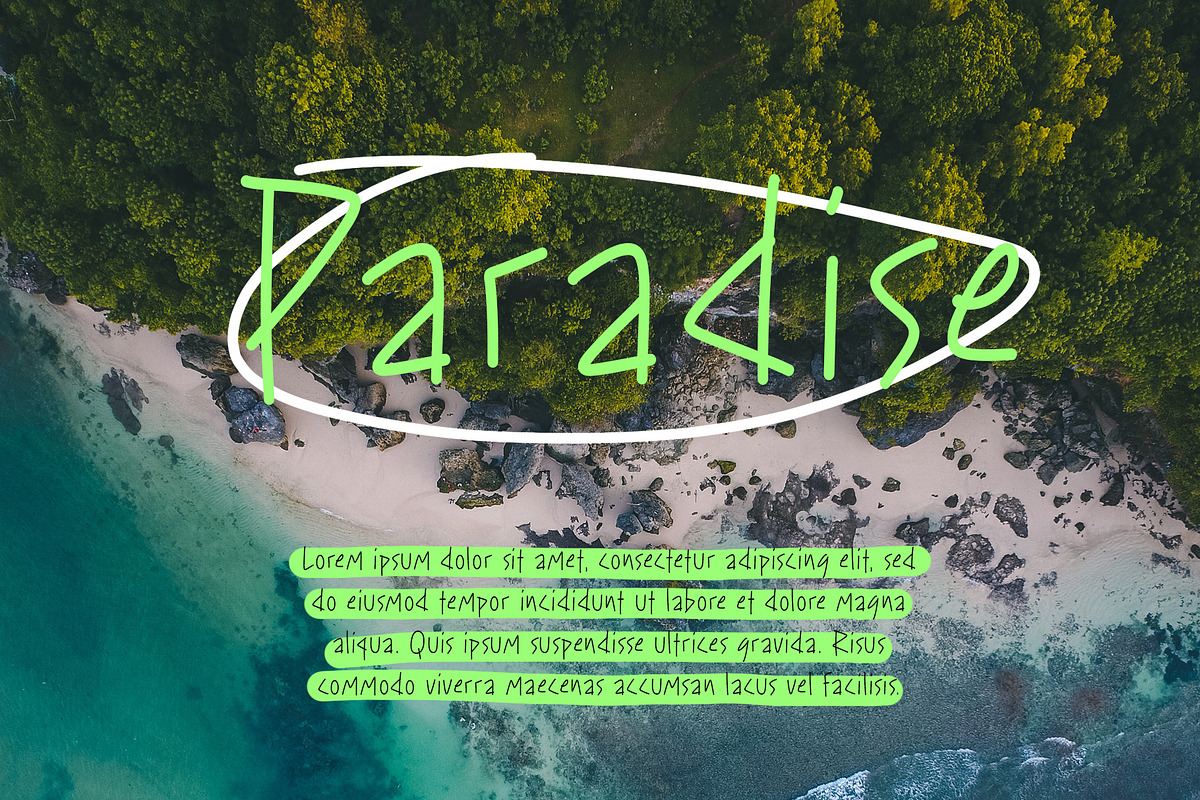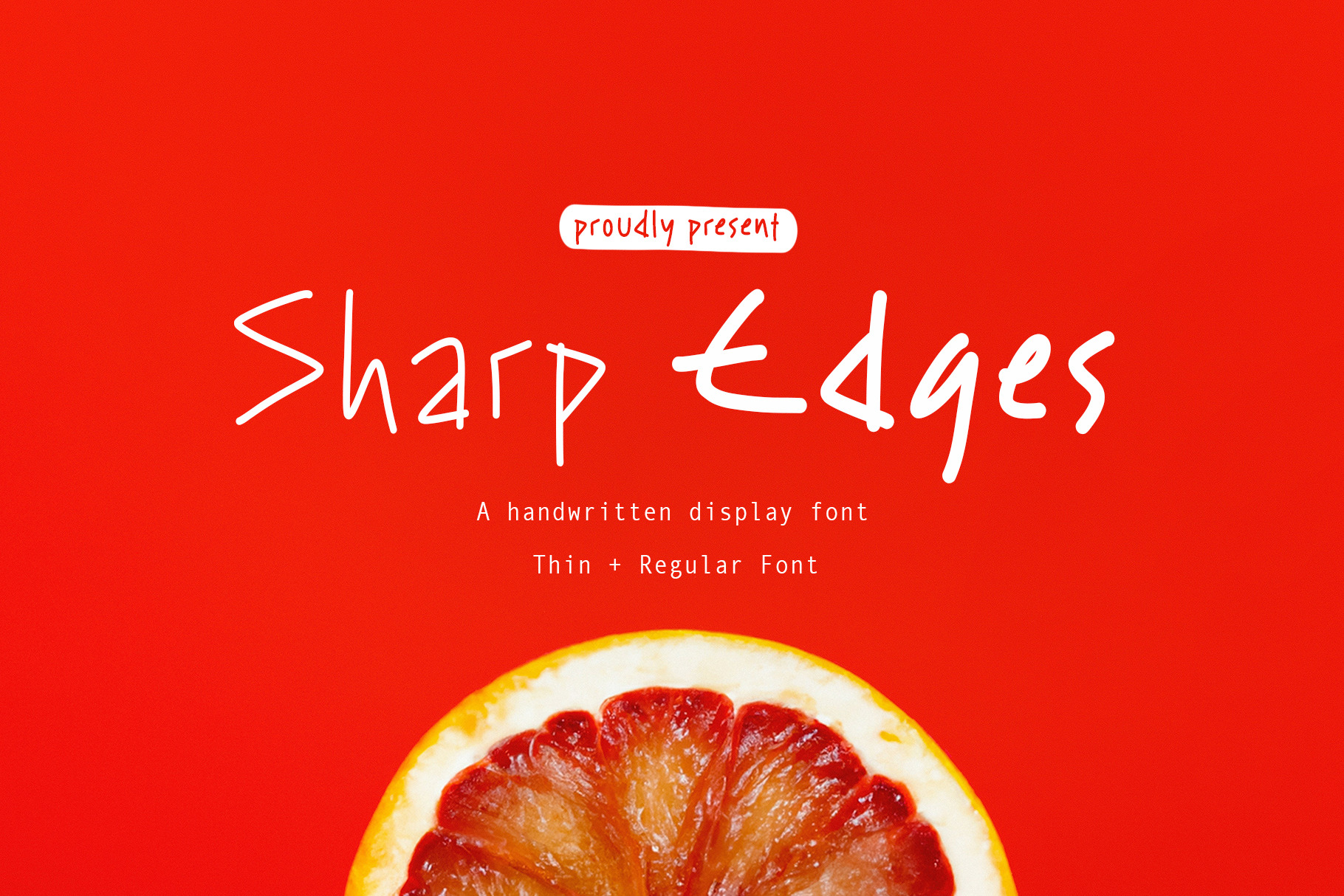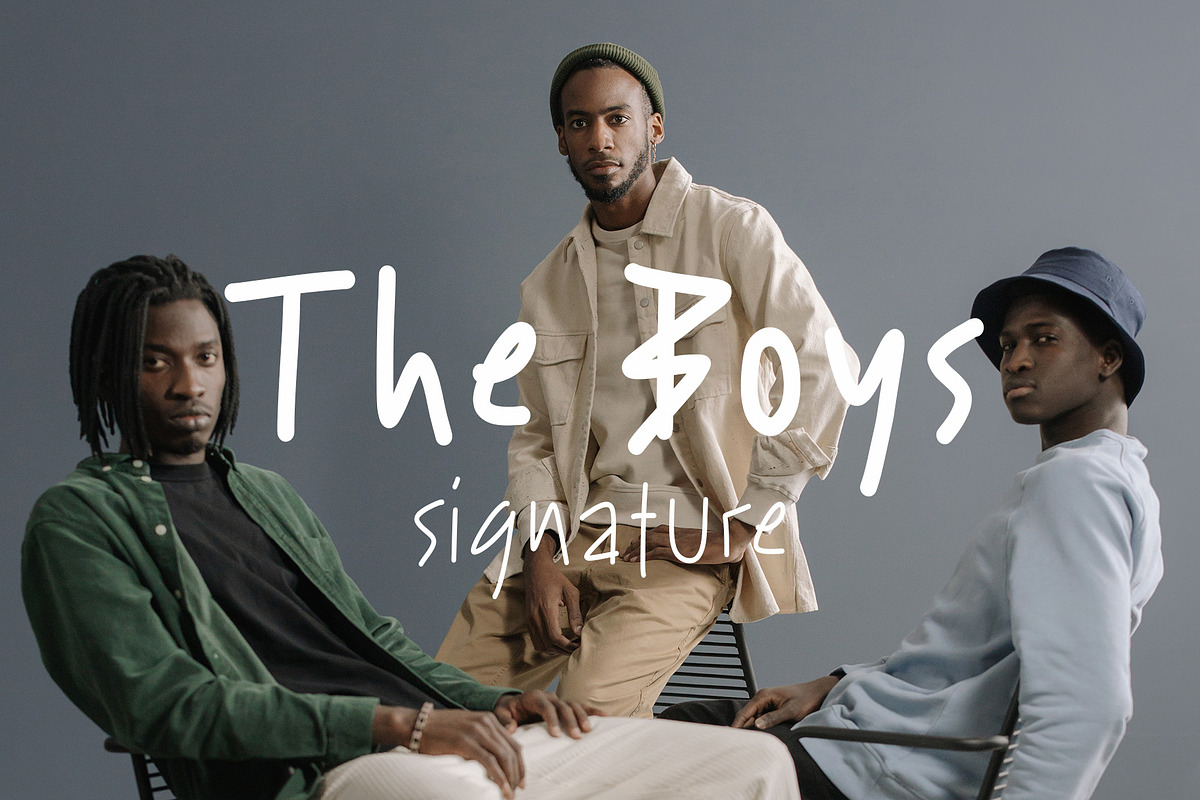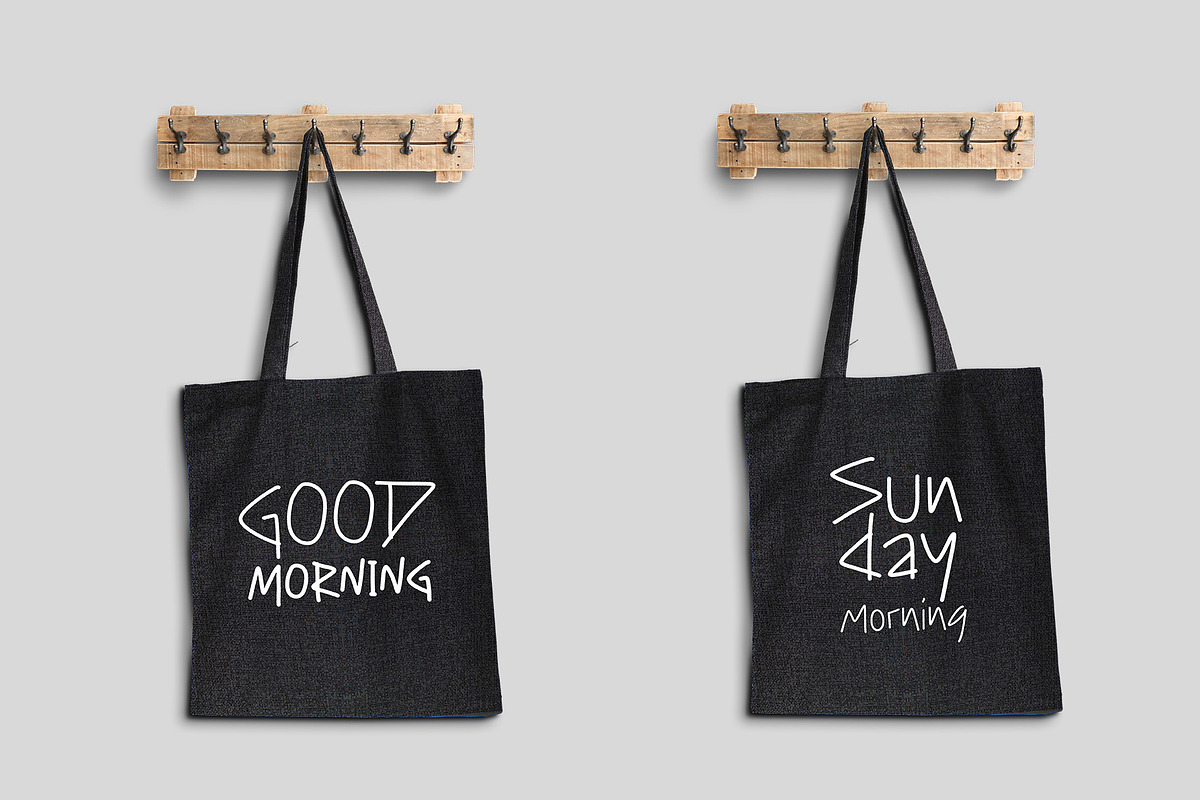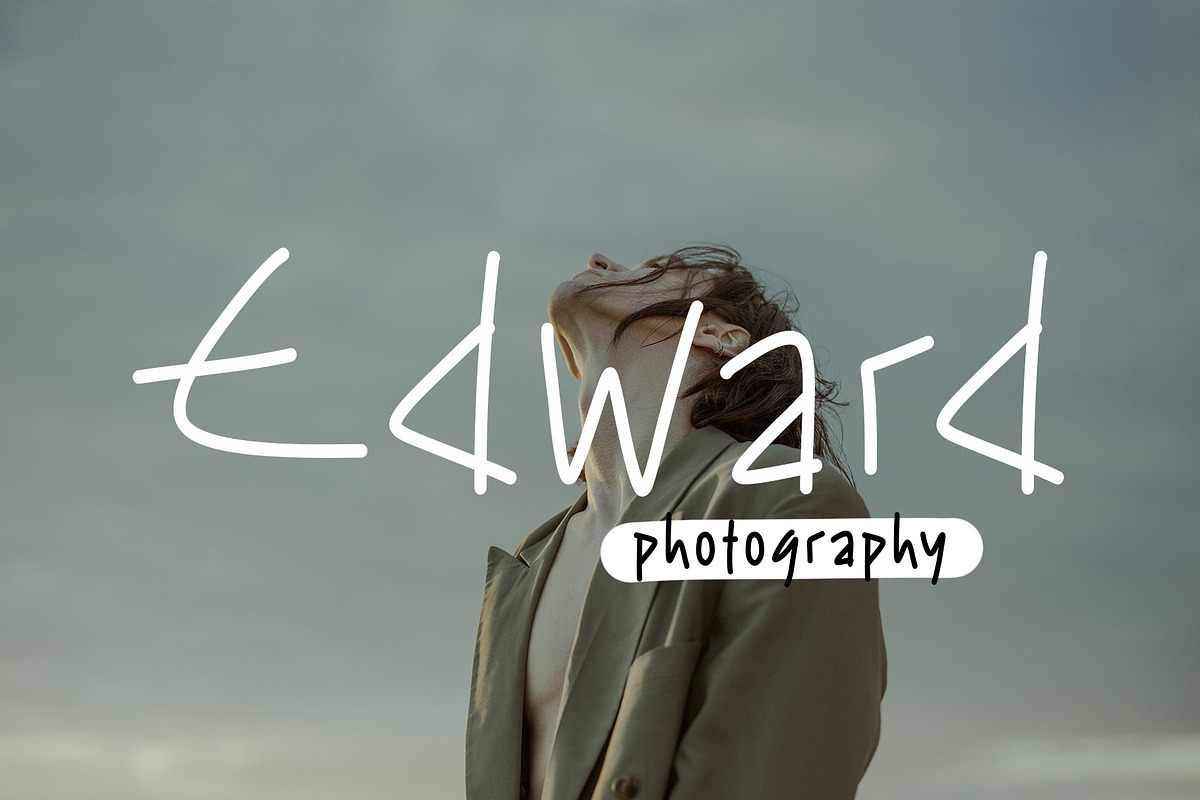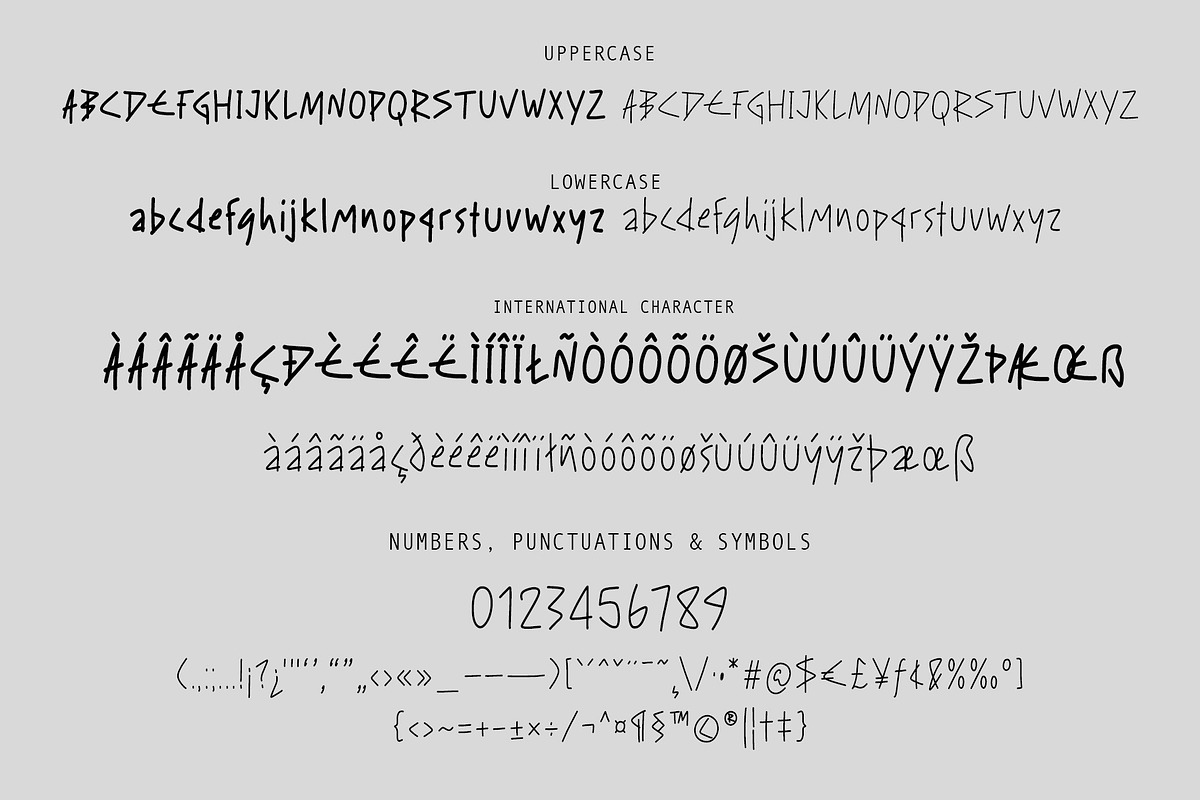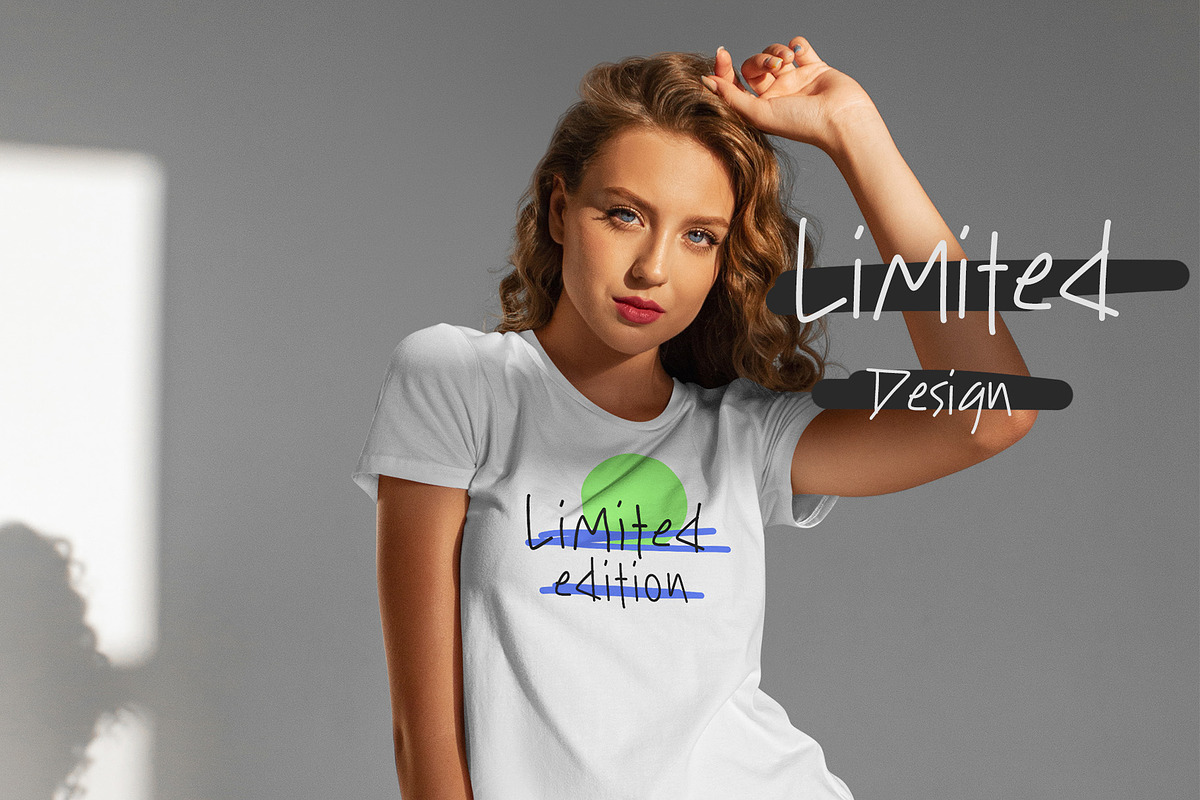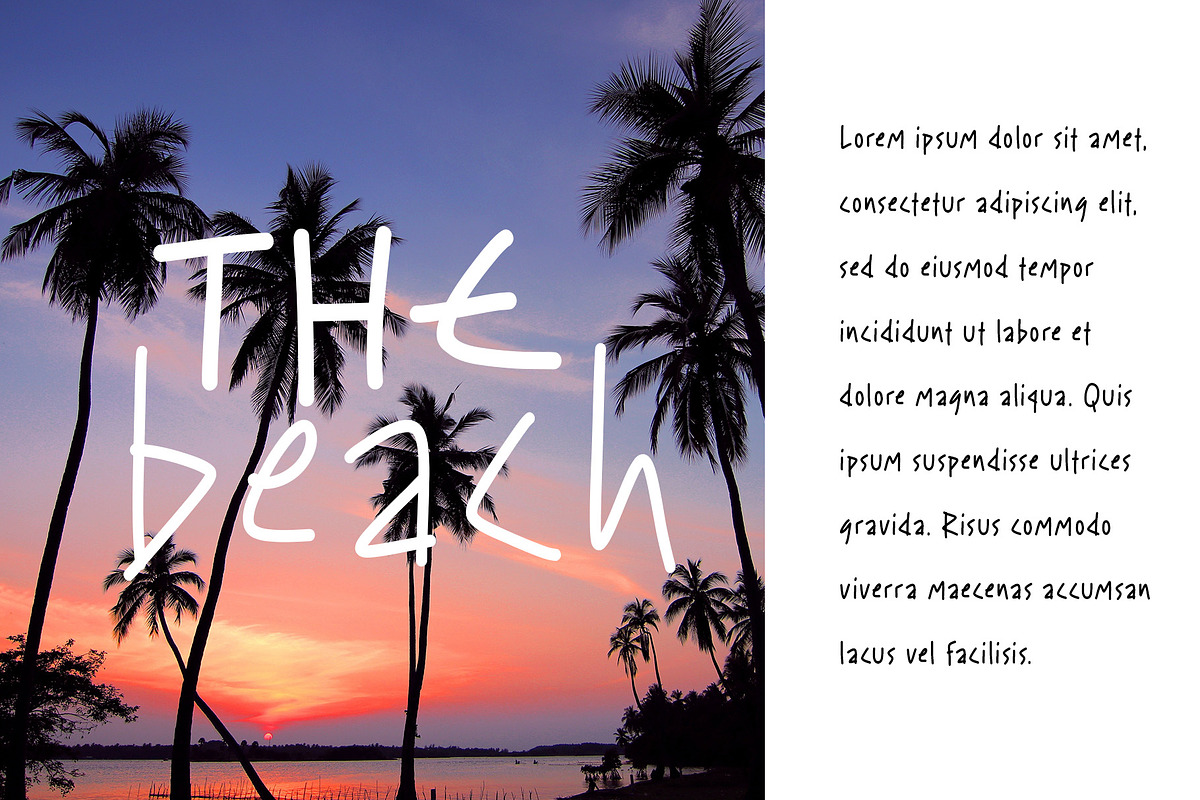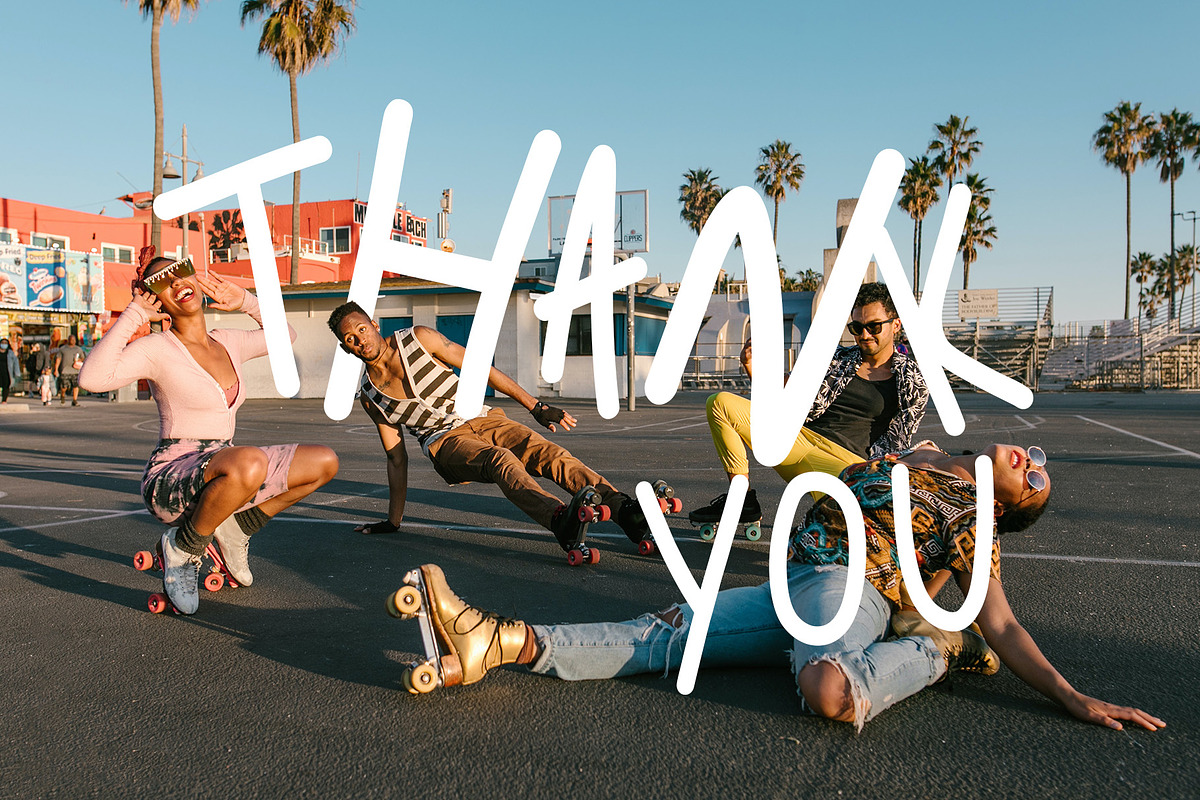
Sharp Edges a Handwritten Font
Sharp Edges is an intriguing handwriting font that exudes a sense of maturity and coolness. The font is designed with a sharp and modern style, creating a standout and classy appearance.
The creation of the Sharp Edges font is inspired by the spirit and personality of today's youth. We aimed to create a font that reflects confidence, creativity, and enthusiasm in facing life's challenges.
Each letter and character in the Sharp Edges font is crafted with sharp lines and angles, symbolizing the clarity and sharpness in every step taken by the current generation.
This font is highly suitable for various design projects that prioritize a modern and elegant impression, such as logo design, business cards, brochures, and other branding materials. Using this font will provide a strong and captivating impression while communicating messages of courage and coolness.
In creating Sharp Edges we hope that the font can inspire and uplift today's youth in pursuing their dreams and achieving success. The font encourages its users to explore their creativity with a sophisticated and impressive appearance.
With Sharp Edges you can showcase a bold and daring personality in every design, creating works that embody the maturity and coolness of the future generations.